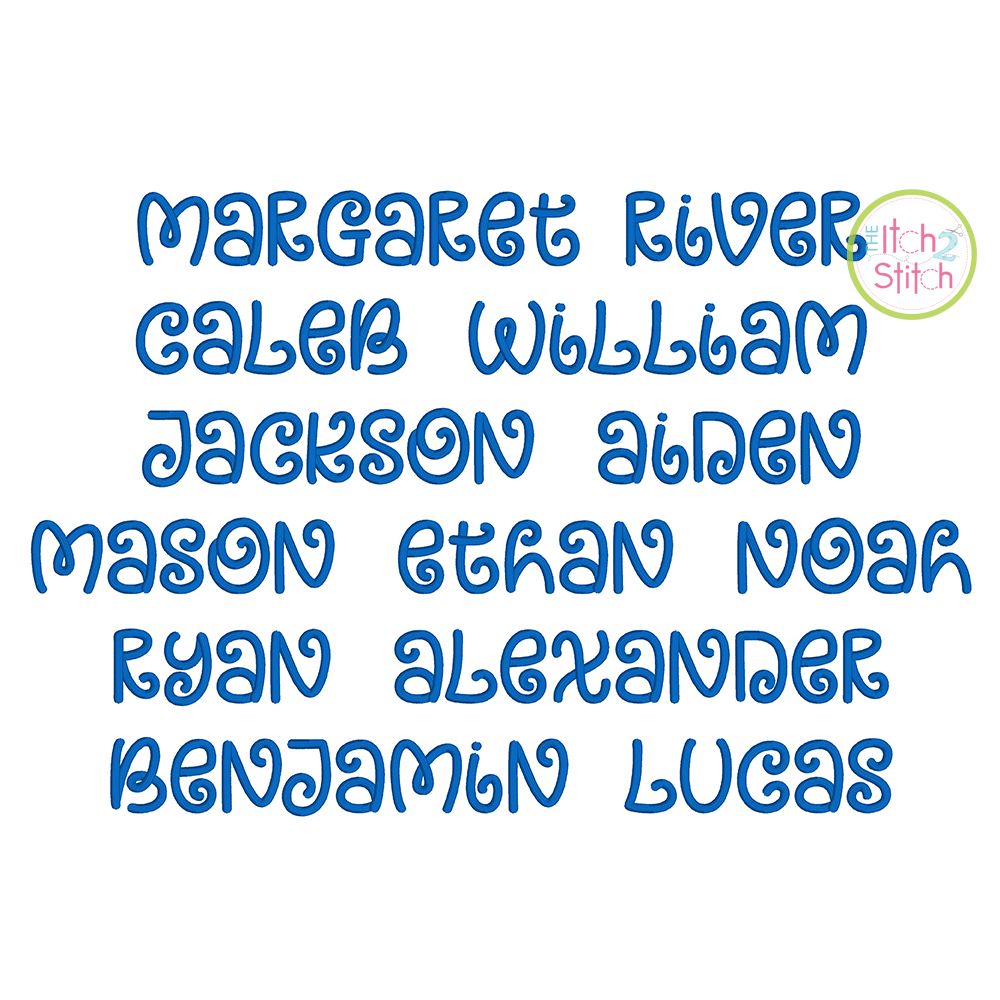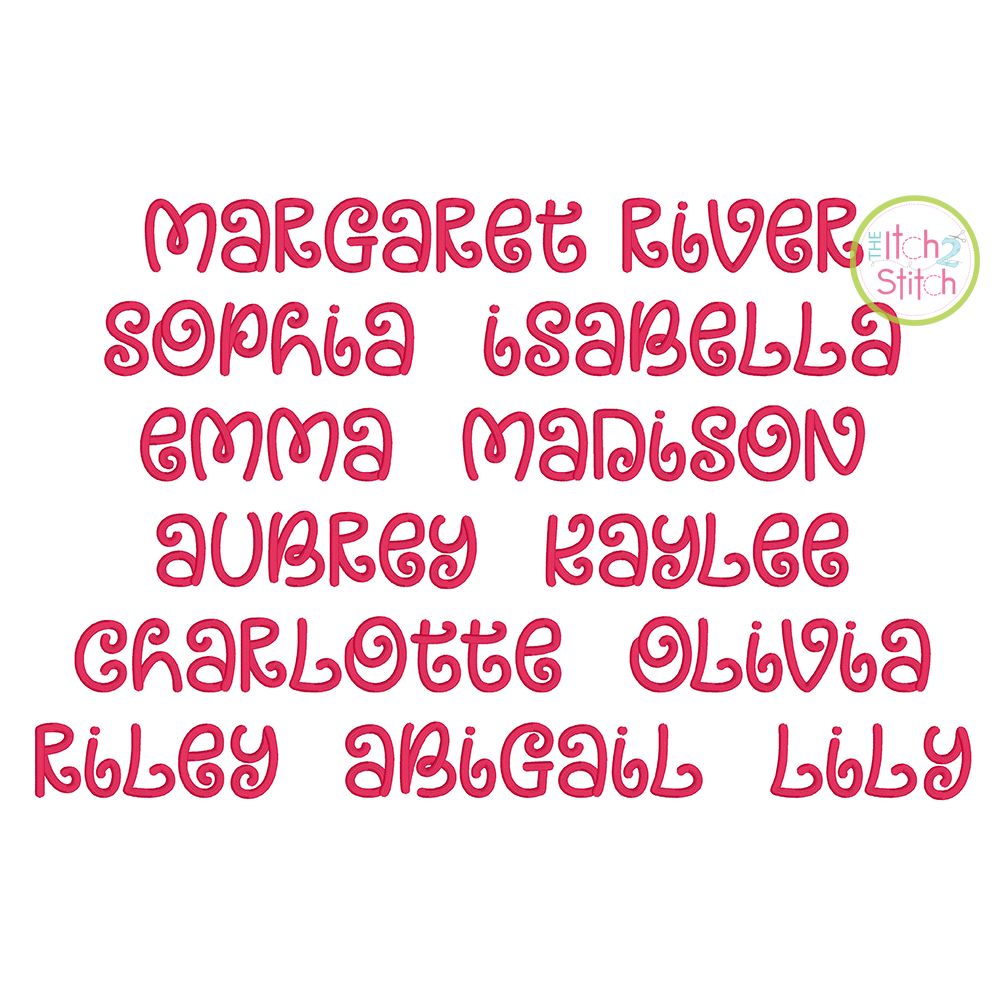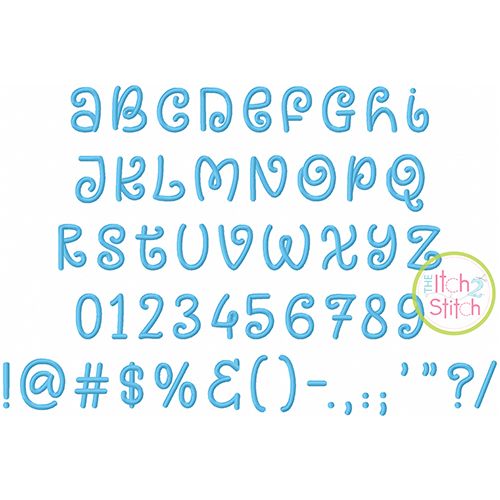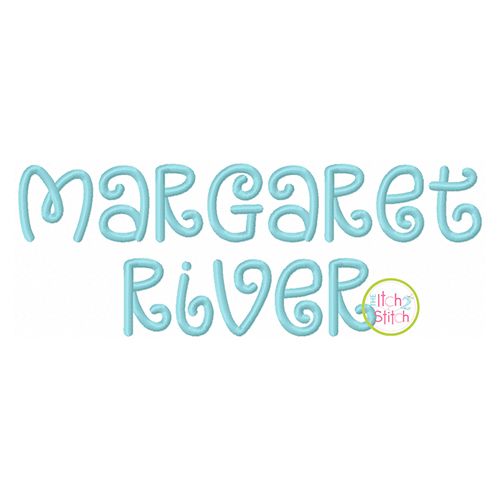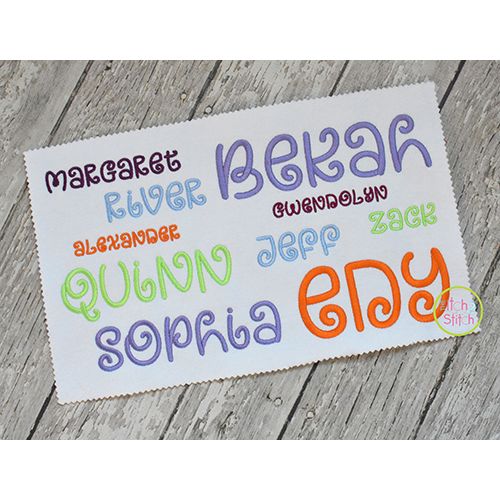
Margaret River Satin Stitch Embroidery Font
You will receive all A-Z letters, numbers, and partial punctuation (53 files) in six sizes. Please note this is a "unicase" font. There is only one design file for each letter of the alphabet. It is a mix of traditional capital and lowercase letters, as pictured.